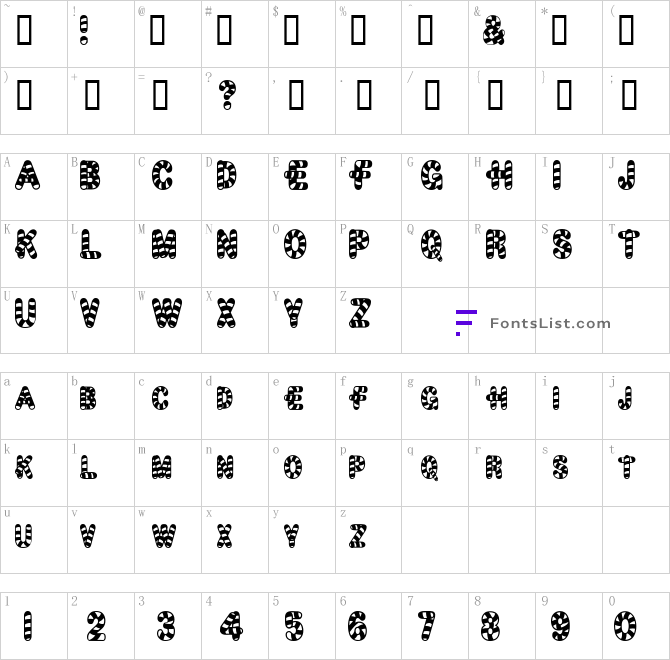
- Font Name:CandyTime
CandyTime.ttf is a very beautiful artistic font, CandyTime.ttf is widely used in the design and printing of various books and pictures,CandyTime.ttf has a strong visual impact,CandyTime.ttf is a commonly used font in newspapers, magazines and books, and is used in posters, e-commerce Poster design, store design, logo design, font design and other fields.CandyTime.